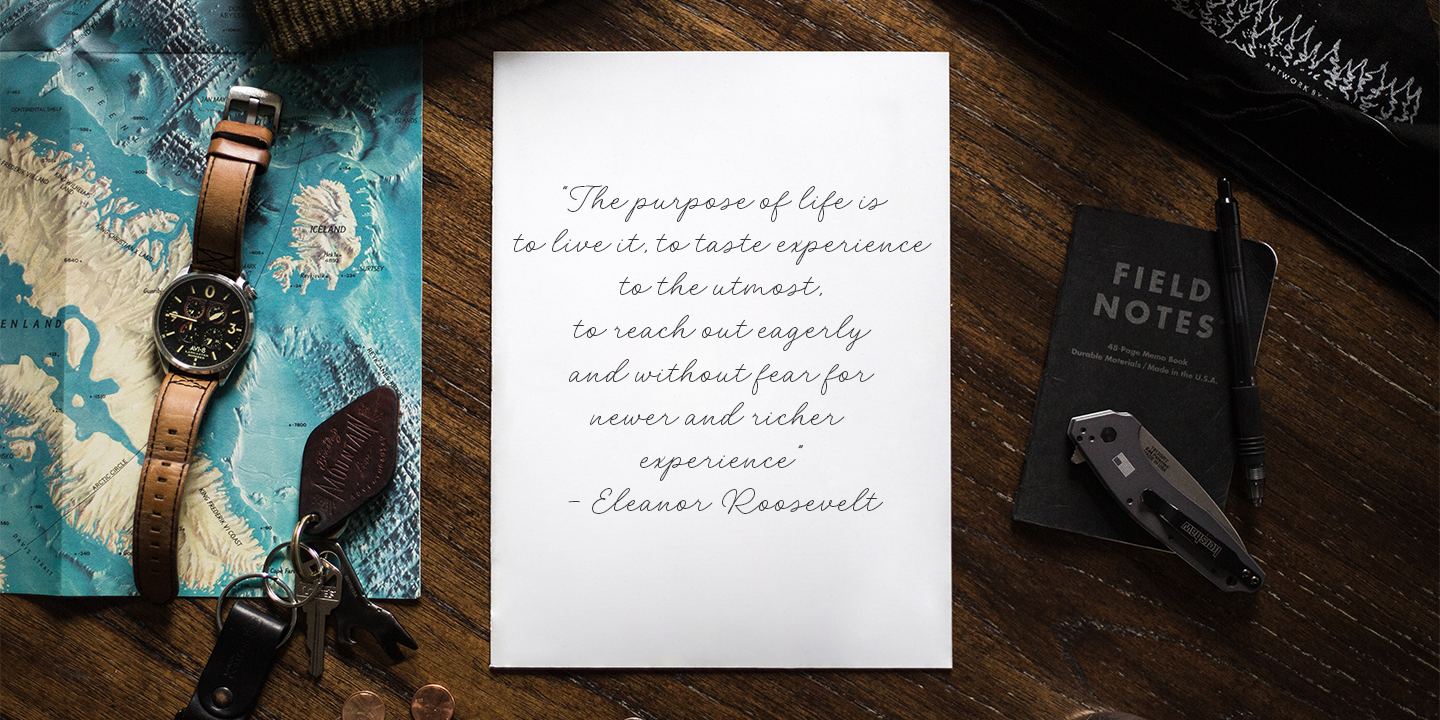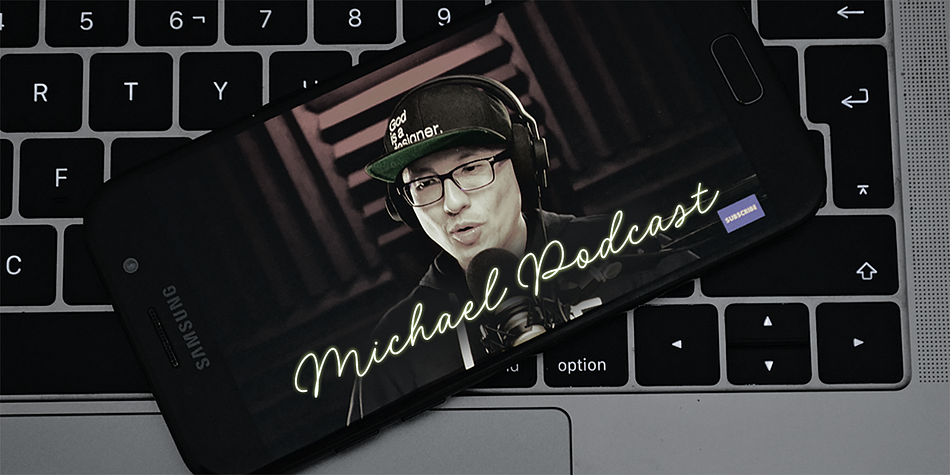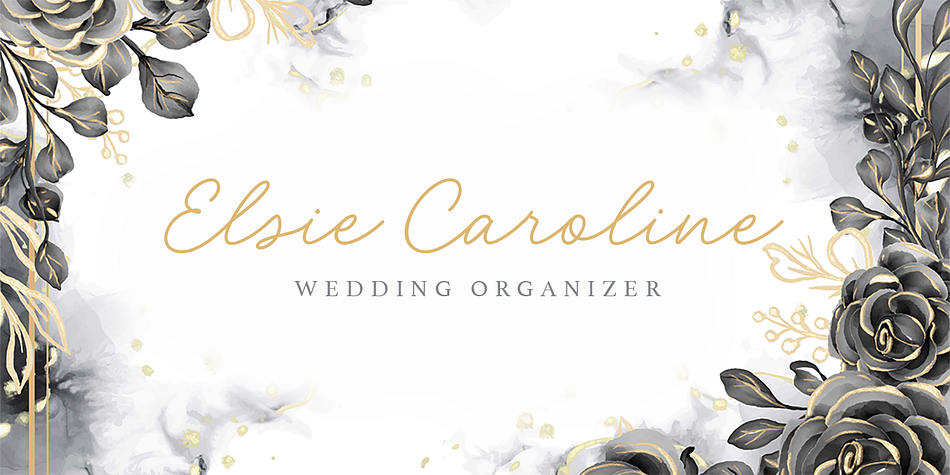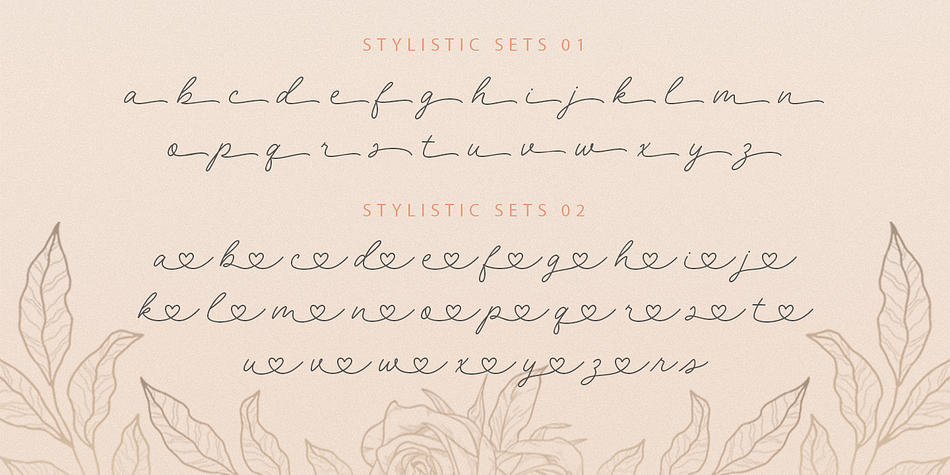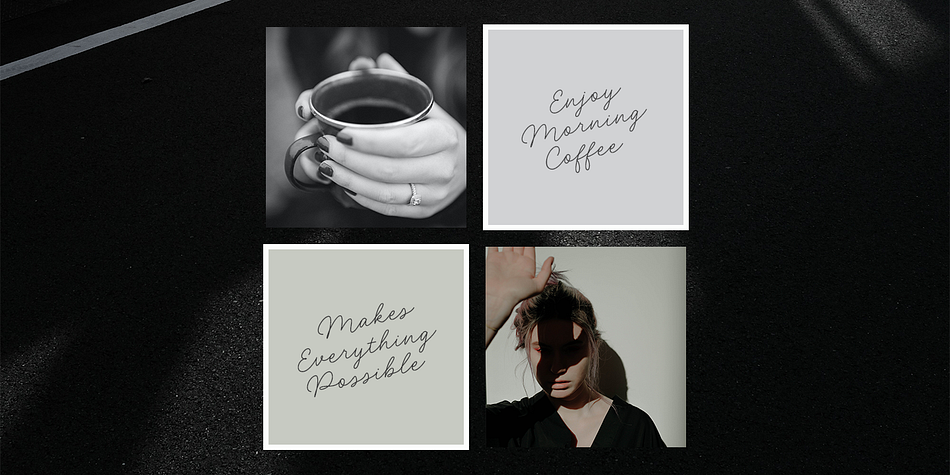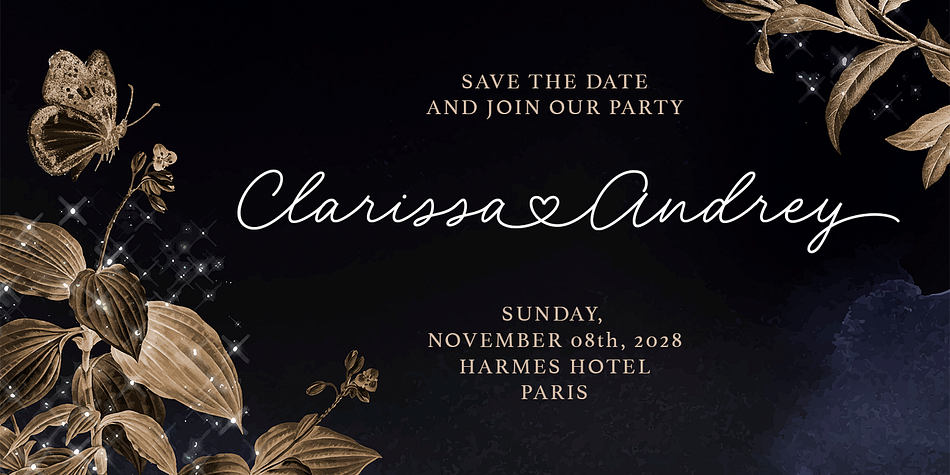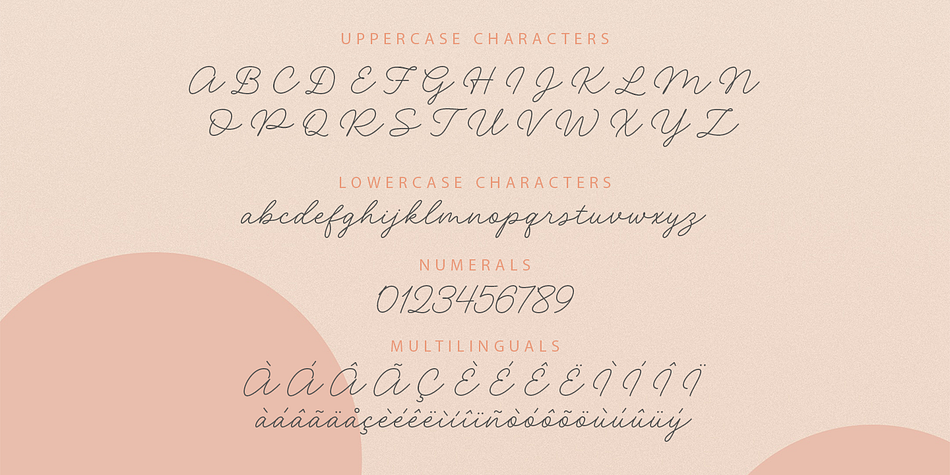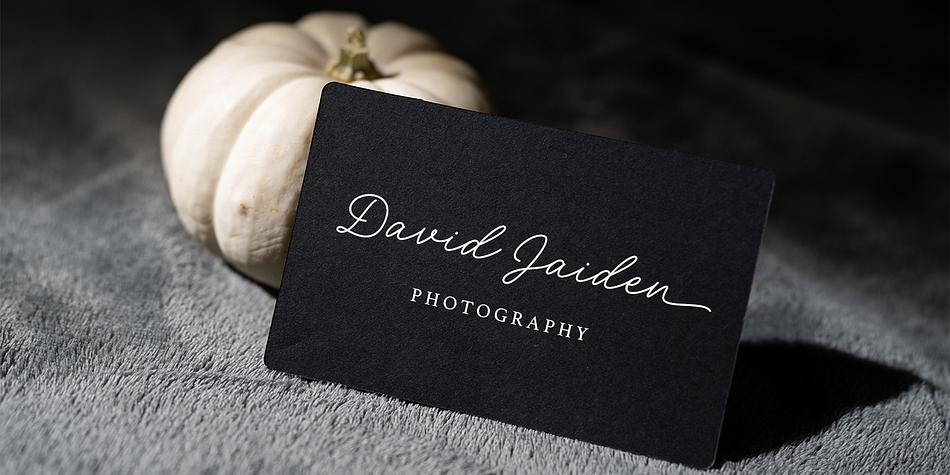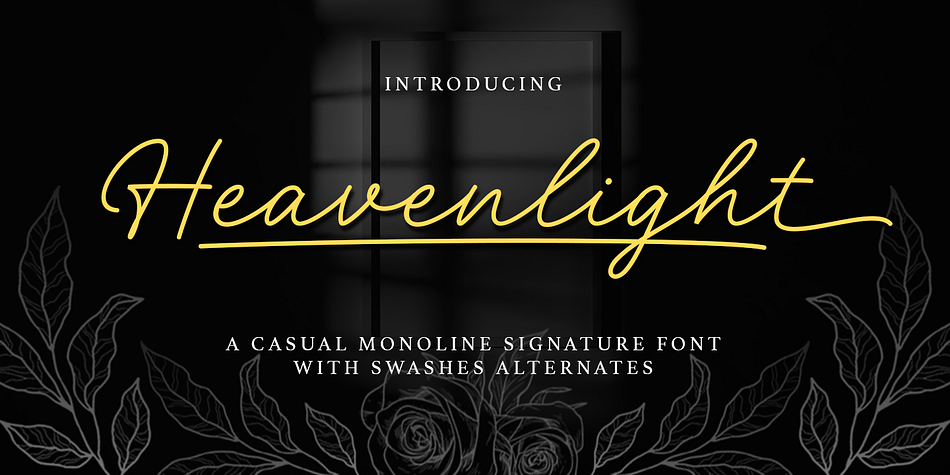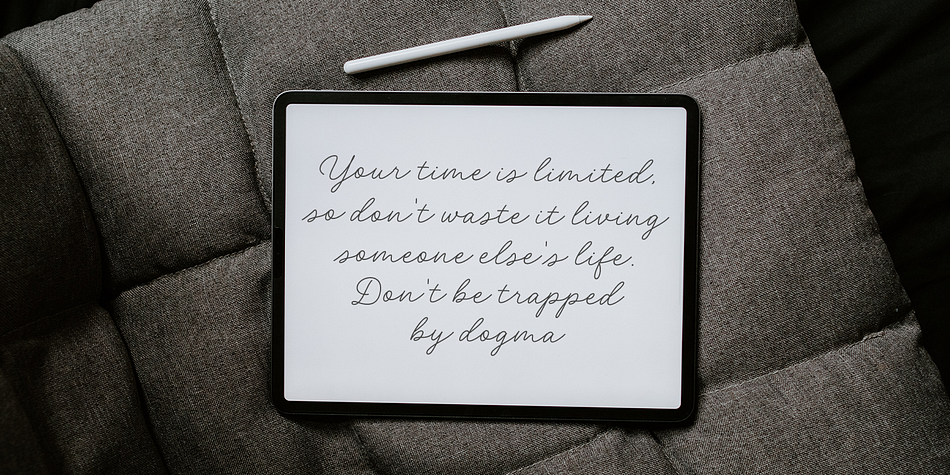
Heavenlight
Heavenlight is a script font family published by Fargun Studio.
Heavenlight is an elegant and casual monoline-signature font. This font is suitable for branding, logos, wedding invitations, magazines, brochures, and many more.
This font has unique set and swashes alternates that will enhance your design.
Stylistic Set
Swash Alternates
Multilingual Support